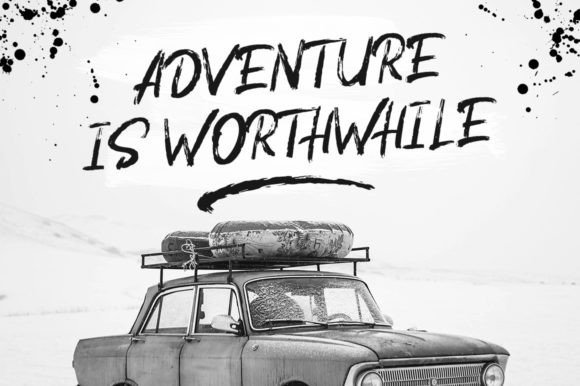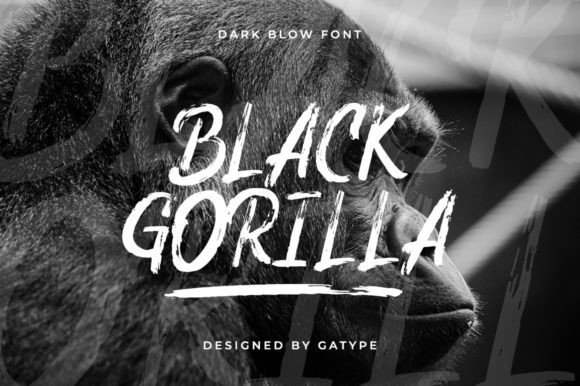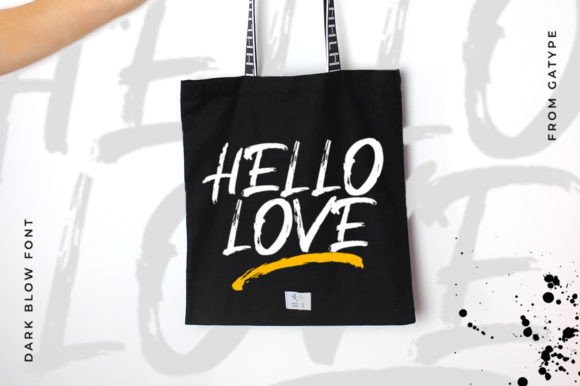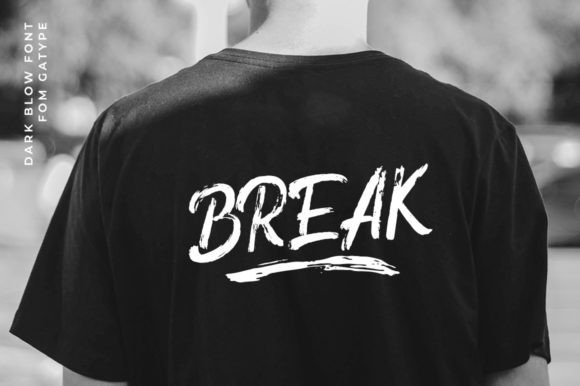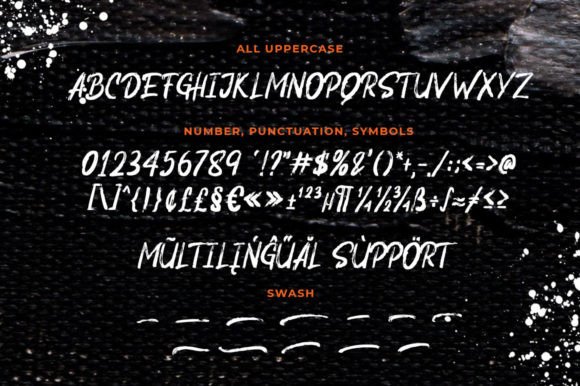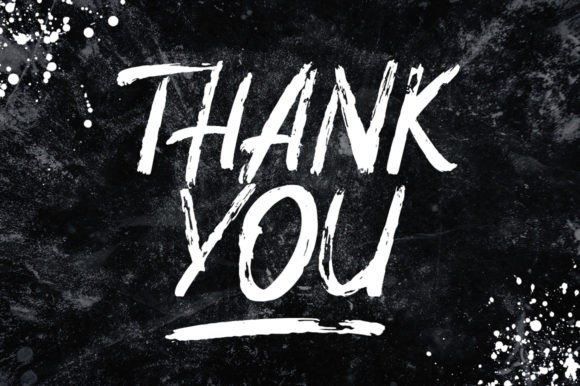
I still remember the frustration of working on a project, hours spent crafting the perfect design, only to realize that the font I chose wasn’t quite right. The client wanted something modern, trendy, and urban-inspired, but I was stuck with a font that looked like it belonged in a different era. That’s when I discovered Dark Blow, a handwritten brush font that changed the game for me.
First Impressions: A Love Affair with Dark Blow
Dark Blow is a modern and trendy handwritten brush font, designed to give your designs an urban-inspired look. Its unique blend of bold and fluid strokes makes it perfect for creating eye-catching designs that stand out from the crowd.
An Honest Review: The Good, the Bad, and the Quirky
What I Love About Dark Blow ✨
- 💥 **Unique and trendy design**: Dark Blow’s urban-inspired look is perfect for creating modern designs that pop.
- ✅ **High-quality rendering**: The font looks great at any size, making it perfect for use on various platforms.
- 🎨 **Versatile**: Dark Blow can be used for a wide range of design projects, from logos and branding to social media graphics and more.
- ⚠️ **Limited use in formal designs**: Dark Blow’s bold and urban-inspired look may not be suitable for formal or traditional designs.
- 🤔 **Some characters may require manual kerning**: While the font is generally well-spaced, some characters may require manual kerning to achieve optimal results.
The Story Behind Dark Blow: Designer Inspiration
Dark Blow was designed with the modern designer in mind. Its creator wanted to craft a font that was both trendy and urban-inspired, with a unique blend of bold and fluid strokes. The result is a font that’s perfect for creating eye-catching designs that stand out from the crowd.